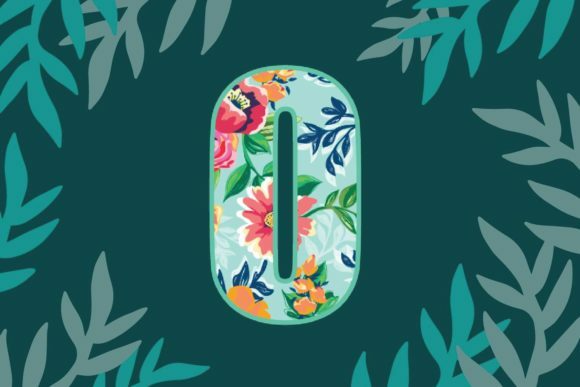
Floracle Font
About Floracle Font
Floracle is a stunning color font adorned with intricate flower and leaf designs. It is an excellent choice for spring or summer-themed designs, as it adds a touch of natural beauty and elegance.
In summary, Floracle is a stunning color font that brings the beauty of flowers and leaves to your designs. Just make sure to use it with compatible applications such as Photoshop CC 2017 and newer, Illustrator CC 2018 and newer, InDesign CC 2019 and newer, and MacOS native apps to fully appreciate its intricate details and vibrant colors.